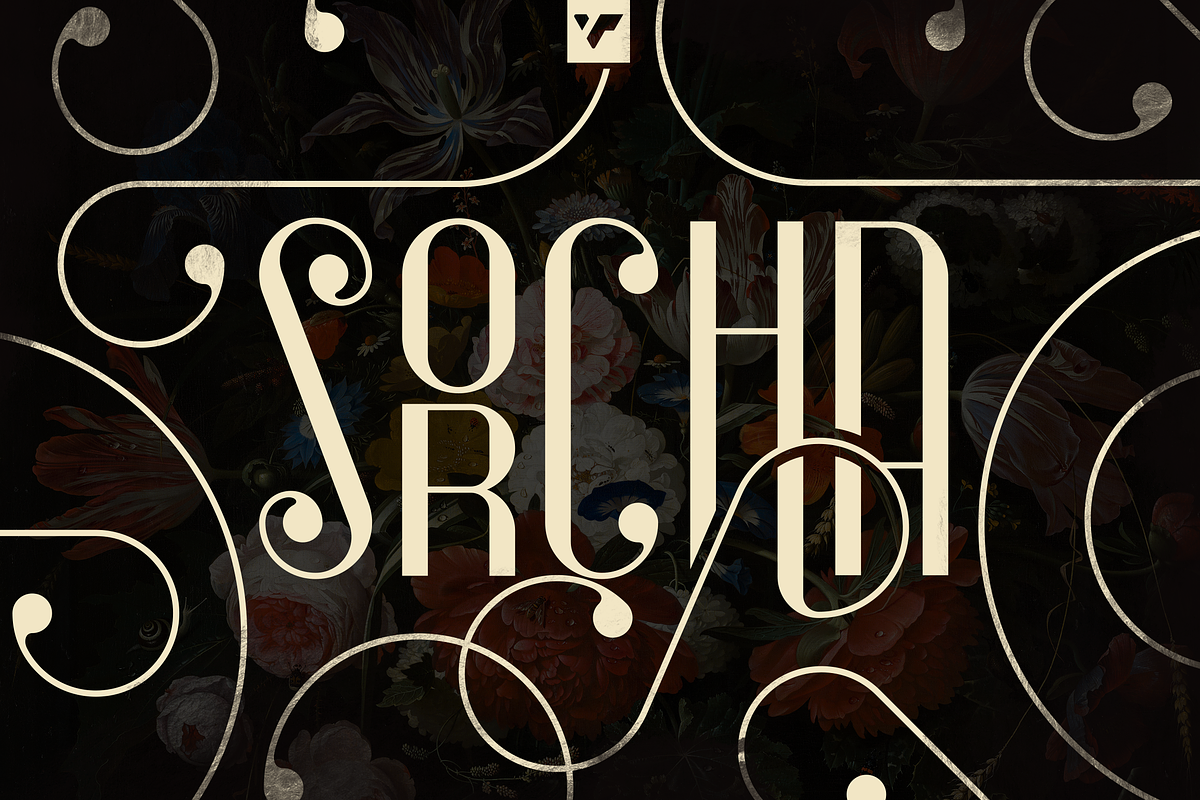
Sorcha Display font + Swashes Free Download
Sorcha Display Font + Swashes Free Download is a bold and elegant typeface designed to make a statement. With its sharp serifs, stylish curves, and decorative swashes, Sorcha is perfect for luxury branding, magazine covers, logo design, wedding invitations, and high-impact headlines.
The included swashes offer beautiful, flowing accents that enhance your typography with a touch of flair and sophistication. Whether you're aiming for a fashion-forward aesthetic or a classy editorial look, Sorcha delivers both drama and refinement in every letter.